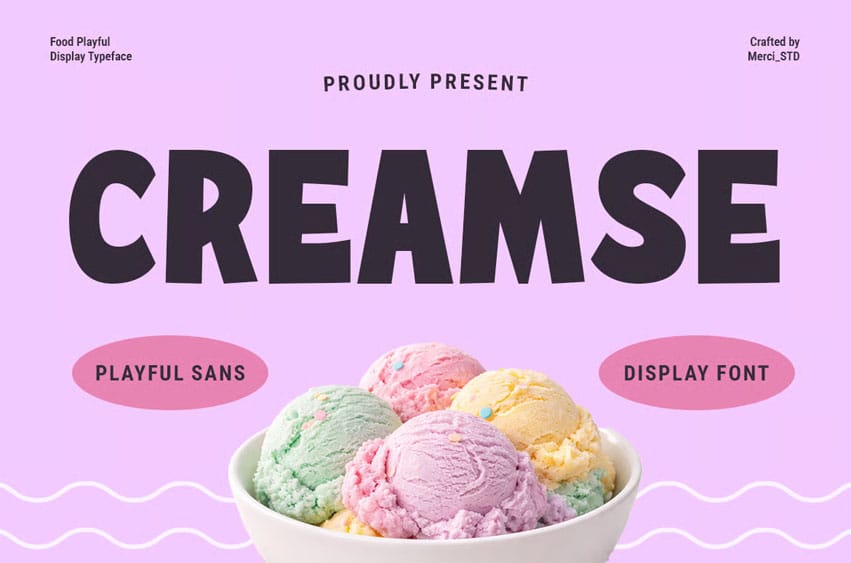
Creamse Font is a playful sans serif display font inspired by sweet and colorful food themes.
With soft curves and bold shapes, it’s perfect for dessert branding, kids design, packaging, menus, and cheerful visual projects.
- Uppercase Letters
- Ligature & Alternate Character
- Unique Hand-Drawn Style